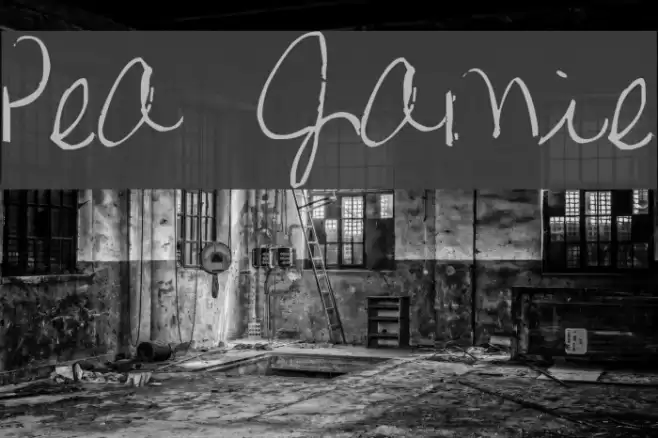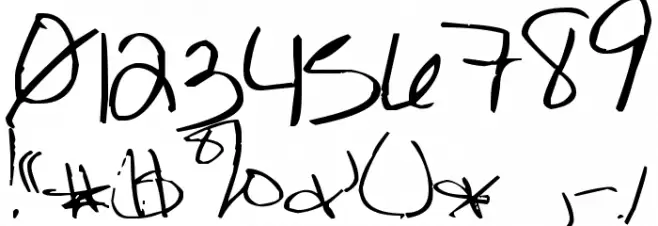
Pea Jamie Font
Pea Jamie Description
This font exudes a casual and playful handwritten style, characterized by its loose and flowing strokes. The letters are unevenly spaced, adding to its informal and spontaneous appearance. The uppercase and lowercase letters maintain a consistent style, with some letters featuring loops and curves that enhance its whimsical nature. The numbers and special characters follow the same playful design, making it suitable for projects that require a personal touch. Its overall aesthetic is reminiscent of a quick, yet deliberate, handwritten note.
A casual, playful handwritten font with loose, flowing strokes from Uncategorized fonts.
- Proposed Projects: Ideal for personal notes, greeting cards, casual invitations, and creative projects that benefit from a personal, informal touch.
- Character Spacing: Wide
- Overall Style: Casual, Playful
- Use Case: Logos, Headlines, Informal Text